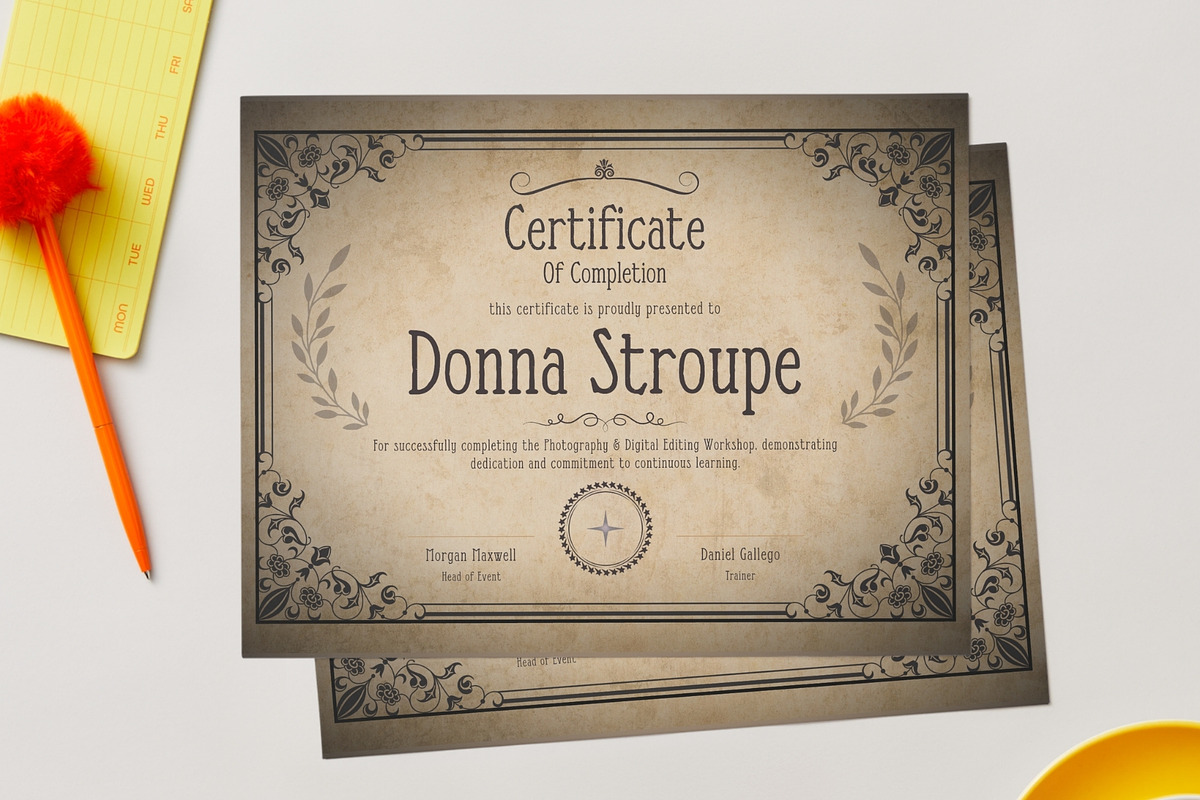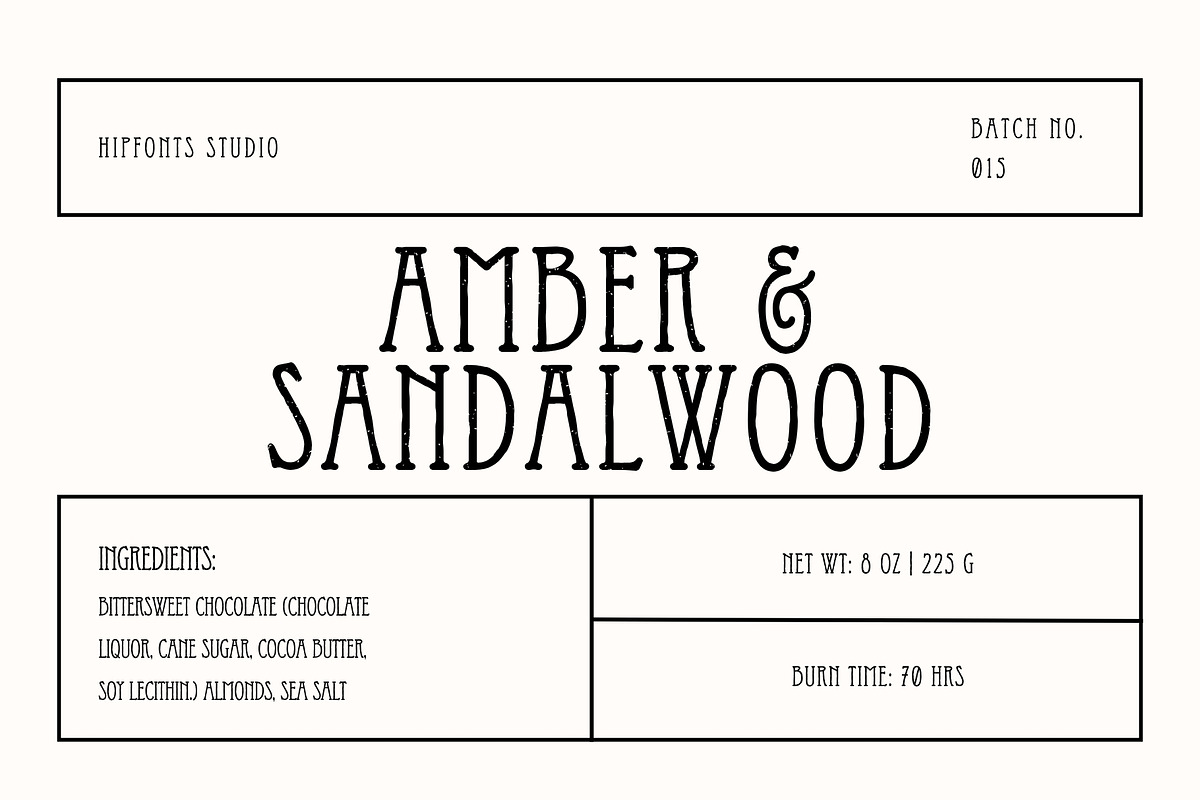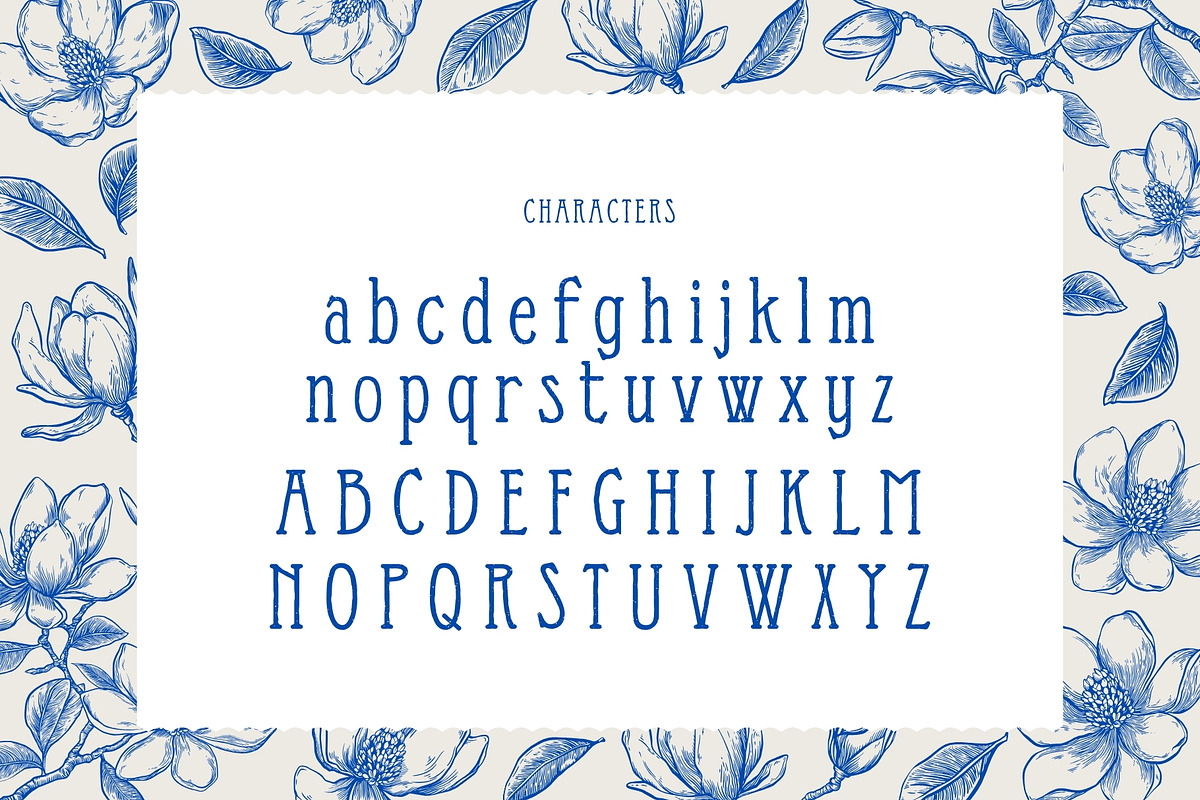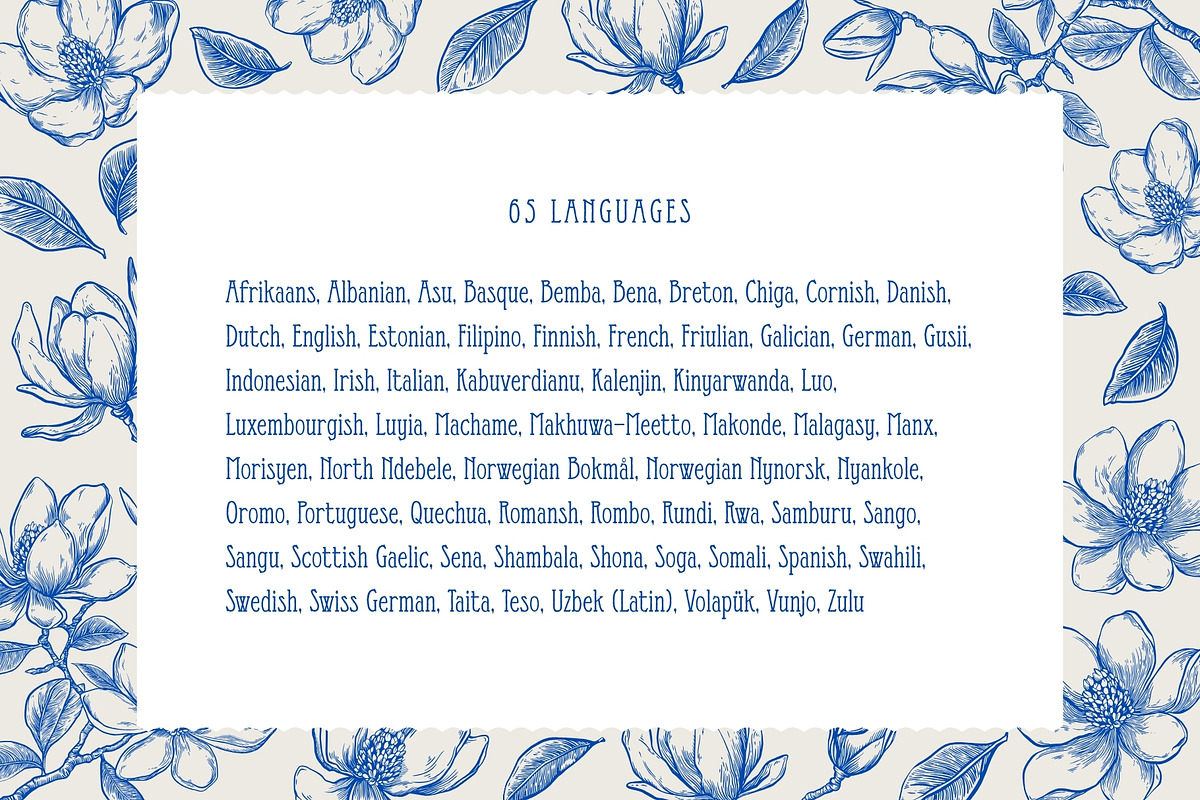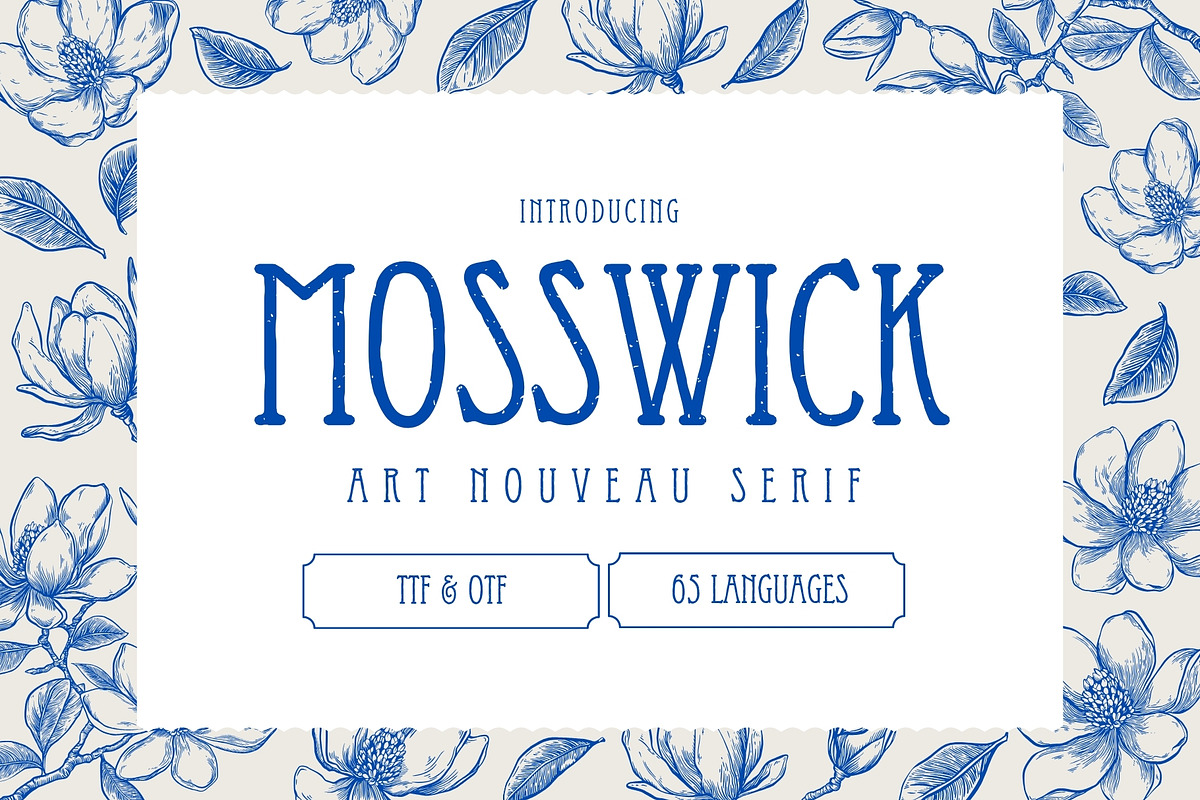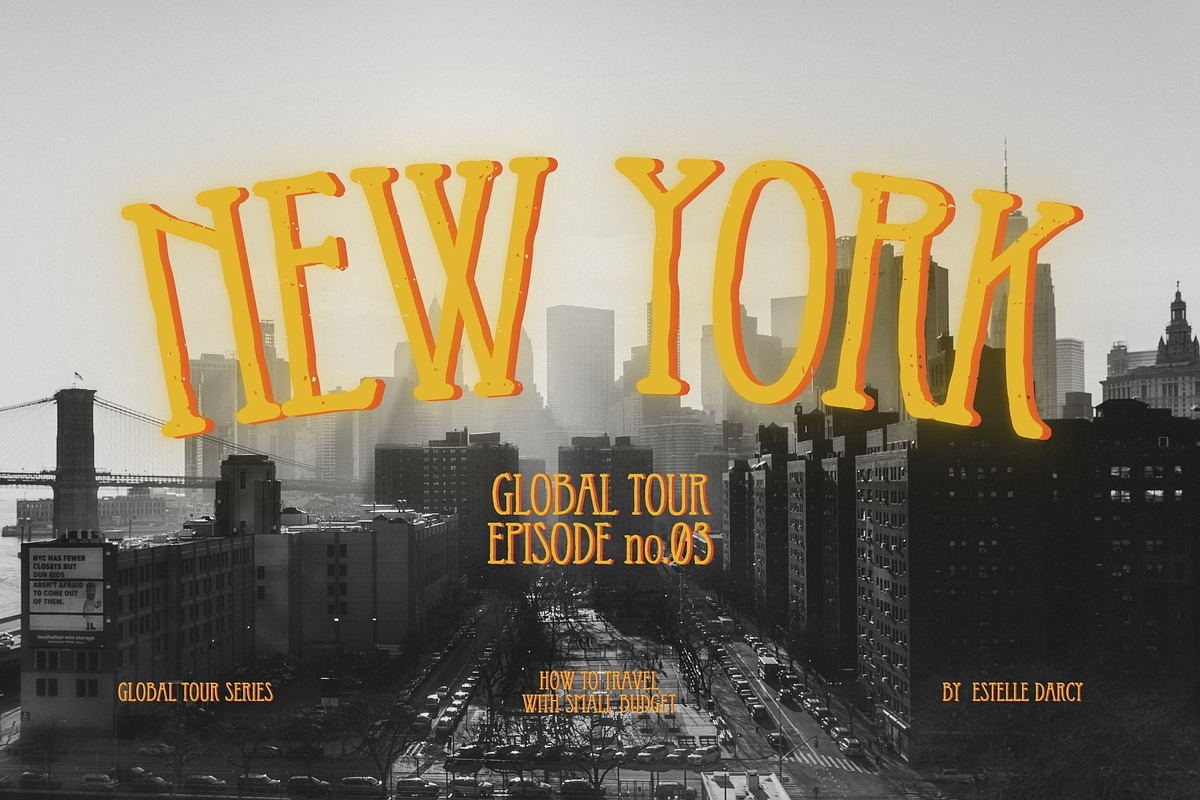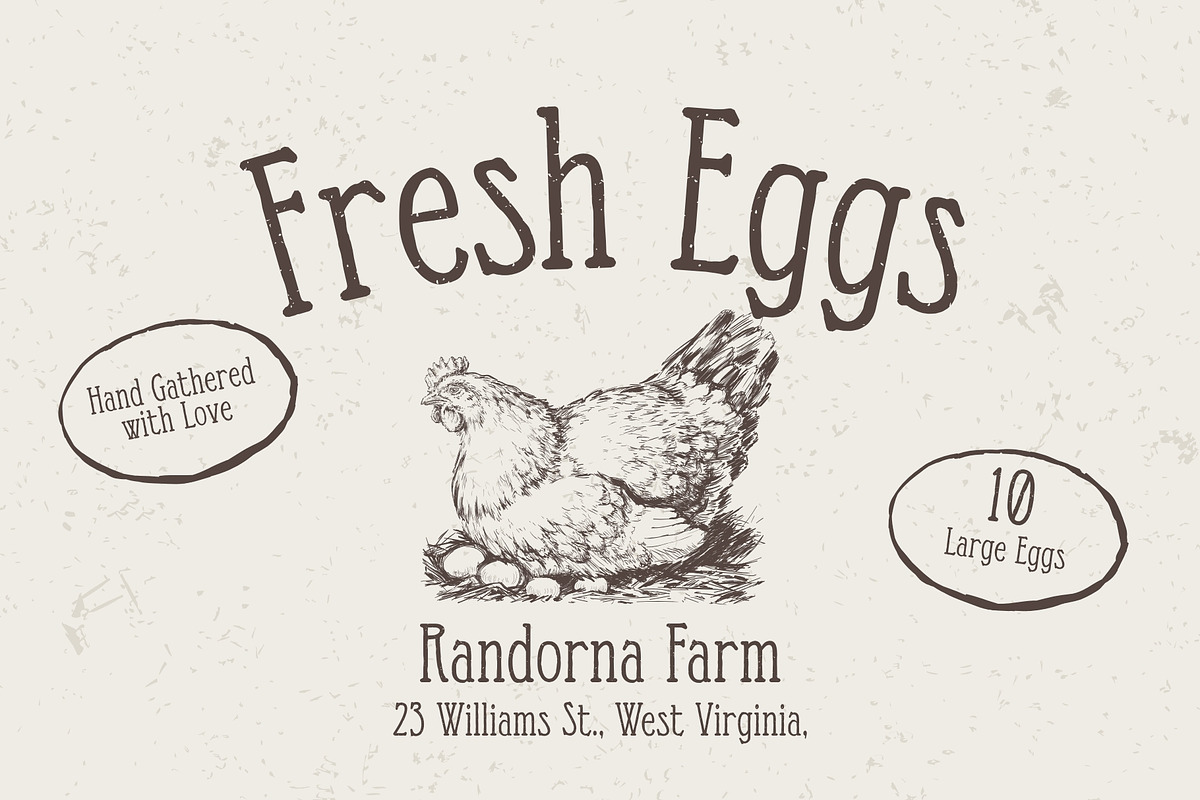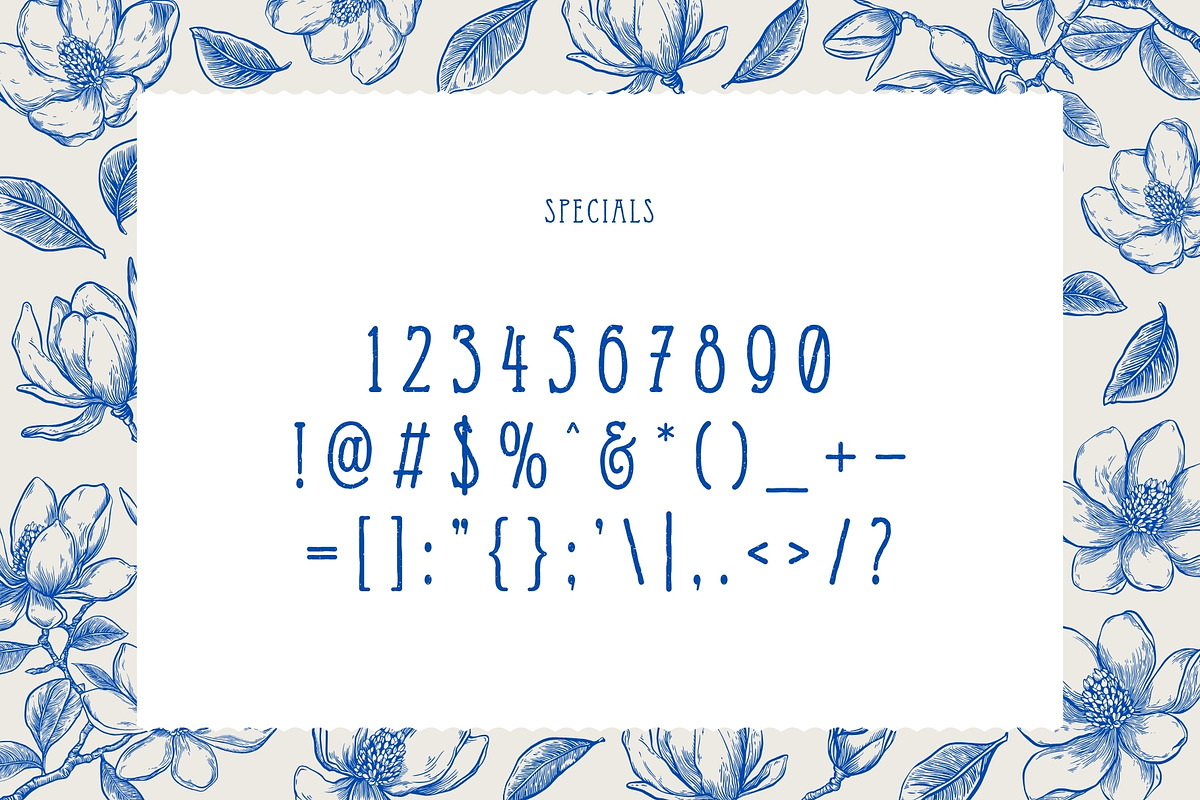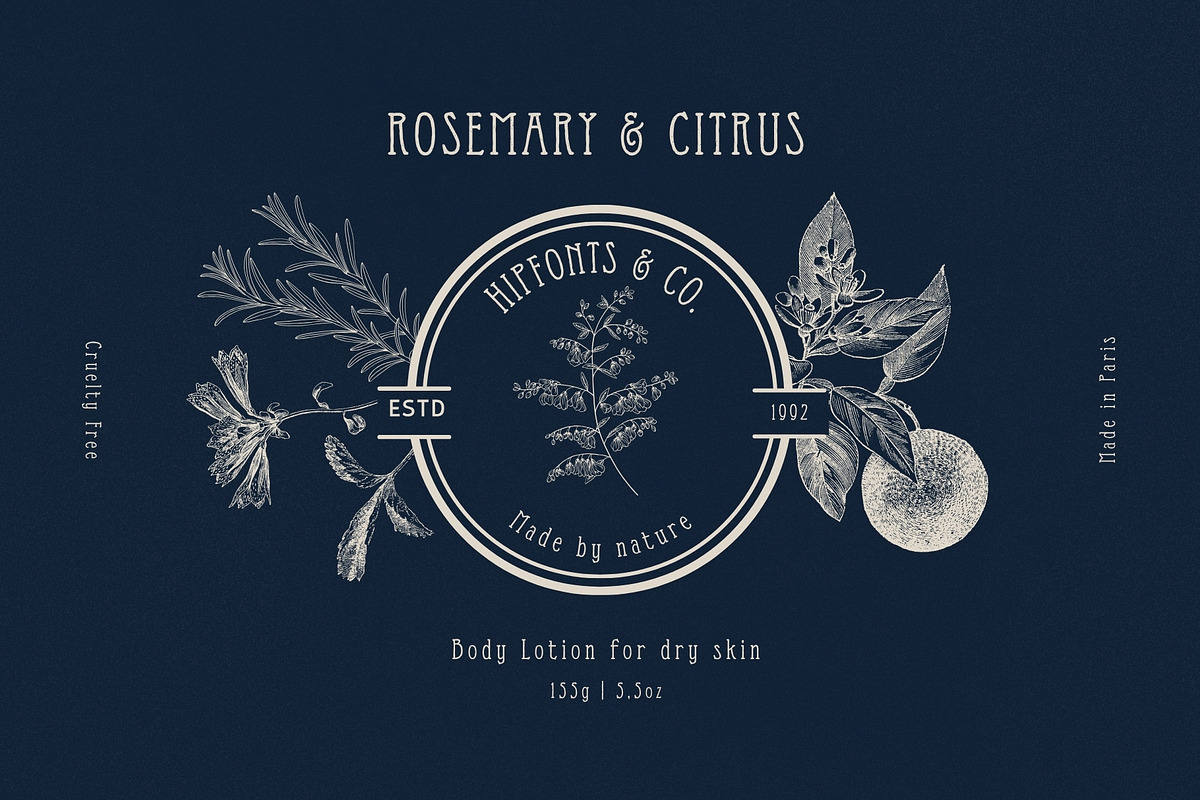
Mosswick - Art Nouveau Serif
Introducing Mosswick, an authentic Art Nouveau serif font infused with elegance, age, and timeless decorative beauty. Inspired by antique packaging, early 20th-century typography, vintage apothecary labels, and the flowing sophistication of the Art Nouveau movement, Mosswick captures the feeling of a treasured typeface weathered beautifully through the ages.
Its graceful curves, ornamental serif details, and naturally distressed texture create a rich sense of history and authenticity, giving every design a luxurious vintage atmosphere. The subtle imperfections and aged character make Mosswick feel genuinely timeless—as if printed on old paper, carved into antique signage, or discovered on heirloom packaging from another era.
Perfect for luxury branding, editorial layouts, magazines, soap packaging, skincare labels, cosmetics, perfume branding, candle packaging, boutique products, wine labels, invitations, posters, and artisanal design projects, Mosswick blends refined sophistication with organic vintage charm.
Elegant. Historic. Beautifully weathered. Mosswick is designed for brands and creatives who want typography with soul, craftsmanship, and enduring character.